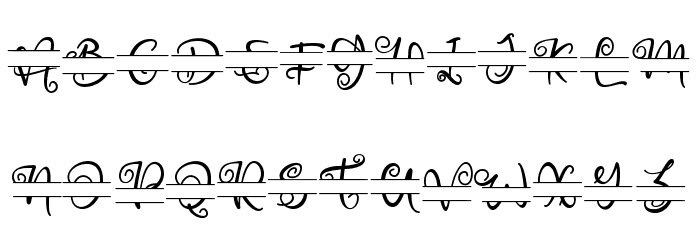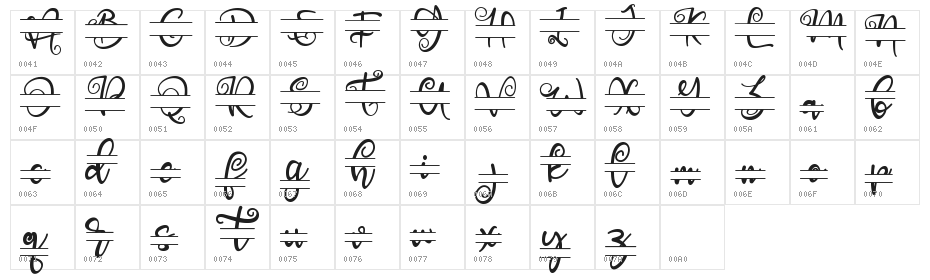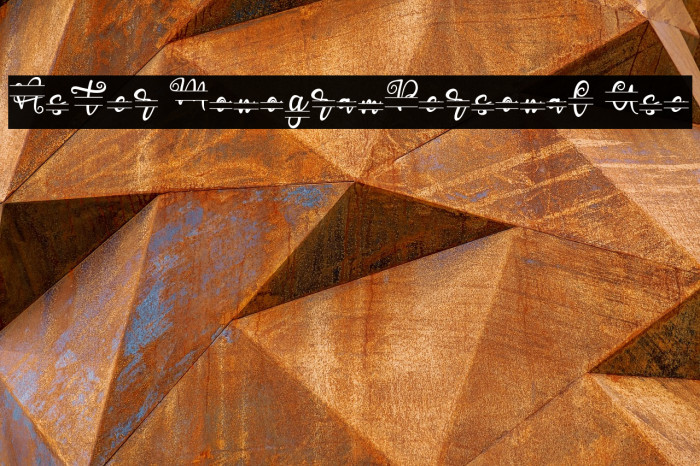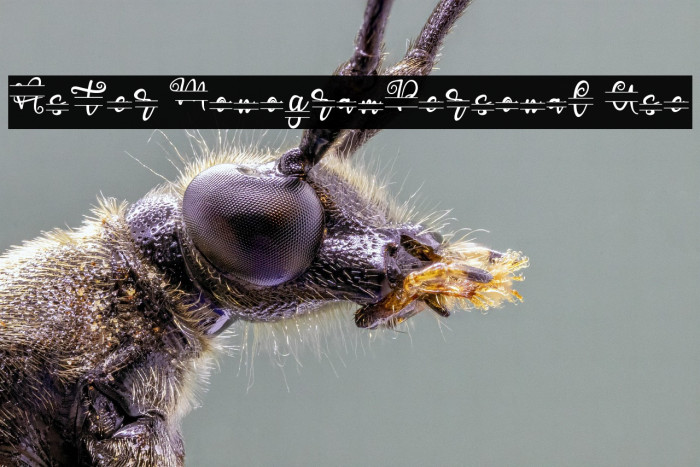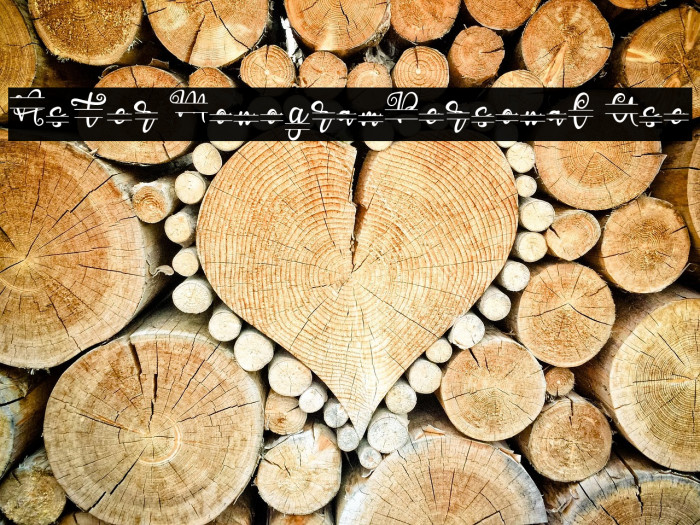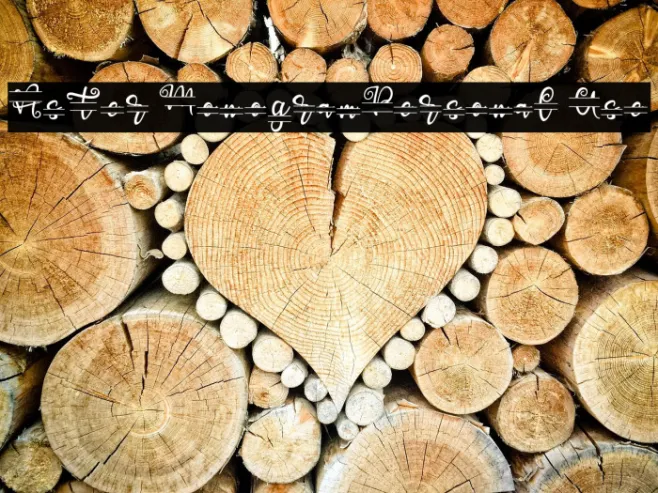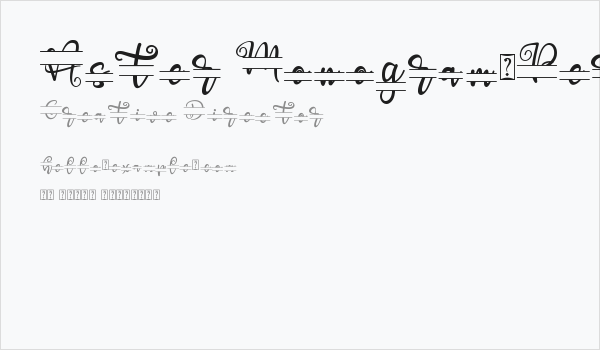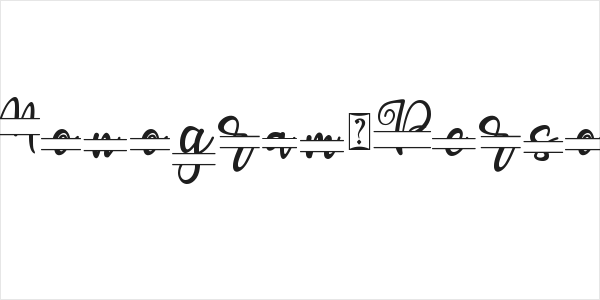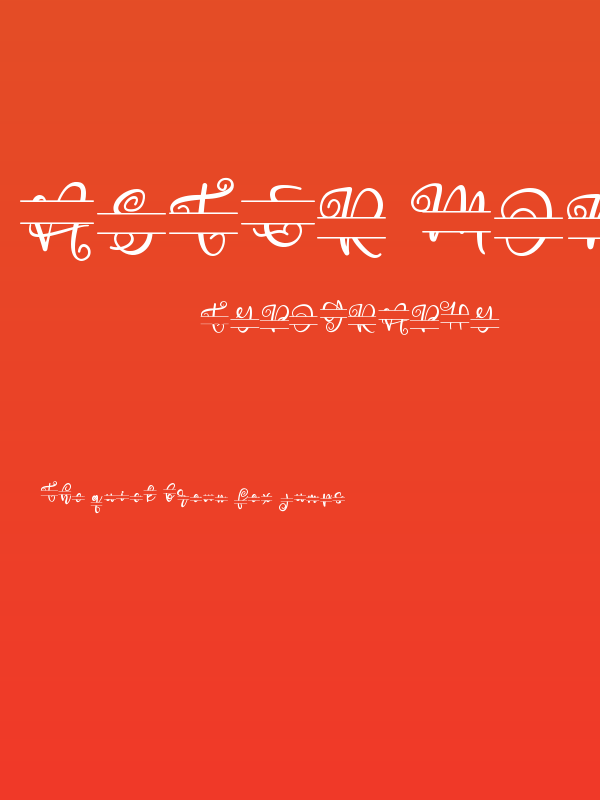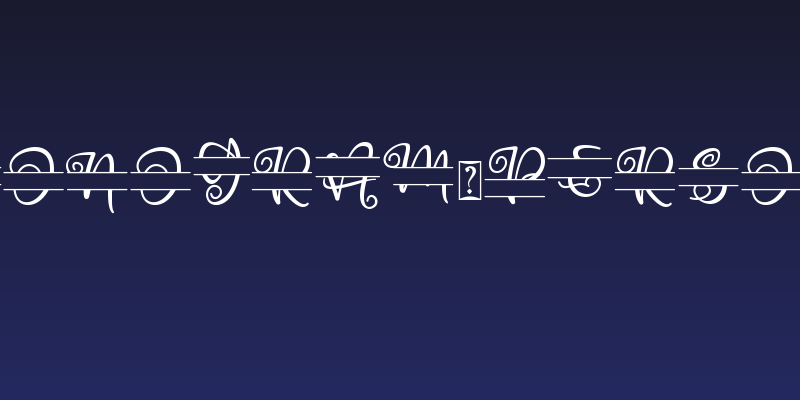
Aster Monogram_Personal Use Font
Aster Monogram_Personal Use Description
This font features an elegant and decorative style, characterized by its intricate swirls and flourishes that extend from each character. The letters are adorned with unique embellishments, making them ideal for creating monograms or personalized designs. The overall appearance is sophisticated and artistic, with a consistent baseline that runs through each character, adding a cohesive element to the design. The font's ornate nature makes it stand out, perfect for projects that require a touch of elegance and creativity.
| Proposed Projects | Ideal for monograms, wedding invitations, personalized stationery, and decorative branding. |